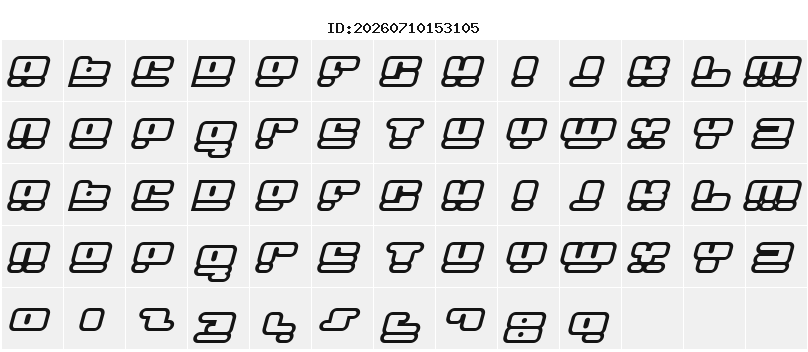
• Font Name: Face plant hollow 2
• Full Font Name: Face plant hollow 2 Italic
About Face plant hollow 2.ttf
Face plant hollow 2.ttf is a modern, elegant sans-serif font designed for ultimate readability and visual harmony. Perfect for branding, headlines, web design, and print materials.